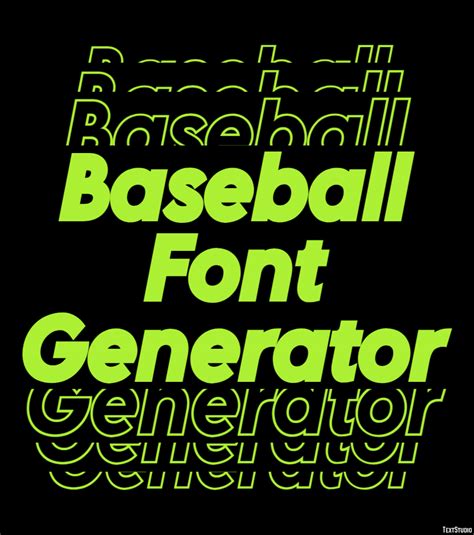
Create Amazing Baseball Designs With Free PSEI Baseball Font Generator
Create Amazing Baseball Designs with Free PSEI Baseball Font Generator
Hey baseball fanatics! Are you looking to amp up your team’s look, create awesome logos, or design some killer baseball-themed graphics? Well, you’re in luck, because we’re diving deep into the world of the PSEI Baseball Font Generator – a fantastic, free tool that lets you create some seriously cool baseball fonts. Forget about spending a fortune on expensive software or complex design skills, because this generator is here to make your design dreams a reality. We’re going to break down everything you need to know, from what the PSEI Baseball Font Generator is all about, how to use it, and some super creative ideas to get those design juices flowing. Let’s get started, guys!
What is the PSEI Baseball Font Generator?
So, what exactly is this PSEI Baseball Font Generator? Simply put, it’s an online tool designed to help you create custom baseball fonts without any complicated design software. This is a game-changer because you don’t need to be a design guru to make professional-looking text for your baseball projects. Whether you are a coach, a player, a parent, or just a huge baseball fan, the PSEI Baseball Font Generator offers a user-friendly interface that lets you customize fonts to match your team’s colors, style, and overall vibe. The best part? It’s free ! No hidden costs, no subscriptions – just pure font-generating fun. You can easily create text for team names, player names, logos, or any other baseball-related design you can imagine. This tool is perfect for creating graphics for team jerseys, website banners, social media posts, and even printed materials like posters and flyers. Because it is so accessible and easy to use, the generator is a must-have for anyone looking to add a professional touch to their baseball-themed projects. With a few clicks, you can create a unique and eye-catching font that perfectly represents your team or your passion for the sport. It’s the ultimate tool for bringing your baseball design ideas to life, all without any technical hurdles. This tool makes the design process simple and enjoyable, allowing you to focus on the creative side of your project.
Key Features of the Generator
Let’s take a closer look at some of the awesome features this generator has to offer. First off, it’s incredibly user-friendly. You don’t need to have any prior design experience to get started. The interface is intuitive, with simple options to customize your text. You can typically choose from a variety of baseball-style fonts or templates, each with its unique look. Some generators offer options to change the font size, color, and even add effects like outlines or shadows to make your text pop. You can usually input your desired text, and the generator will instantly show you a preview of how it will look with the selected font and customizations. The ability to preview your text in real time is a huge advantage, as it allows you to experiment with different styles and settings until you get the perfect look. Often, you can download your custom font in various formats, such as PNG or JPG, making it easy to use in different design projects. This versatility means you can easily integrate your custom font into your favorite design software or use it for your social media graphics. And remember, the fact that this is free is a massive bonus! It levels the playing field, making professional-quality design accessible to everyone, regardless of their budget or skill level. The features are designed to give you complete control over your font creation, making it simple to produce designs that truly represent your team or your personal brand.
How to Use the PSEI Baseball Font Generator: A Step-by-Step Guide
Alright, let’s get down to the nitty-gritty and walk through how to use the PSEI Baseball Font Generator. It’s super simple, I promise! First, you’ll need to find a reliable online generator. There are several options available, so do a quick search and pick one that looks promising. Once you’re on the website, you’ll usually see a text input field where you can type in the words or phrases you want to convert into a baseball font. Next, you can select from a range of available fonts. The generator will typically offer a selection of baseball-style fonts, each with its unique characteristics. Browse through the options and choose the one that best fits your design needs. After selecting your font, you’ll likely have customization options. This is where you can tweak the appearance of your text. You might be able to adjust the font size, the color, and potentially add effects such as outlines, shadows, or even curved text. Experiment with these settings to get the look you want. The generator will usually provide a real-time preview of your text, so you can see how your changes affect the final design. Once you’re happy with your font, look for the download option. The generator will usually allow you to download your custom font in common image formats like PNG or JPG. Simply click the download button, and your font will be saved to your device. Now, you can use your new font in your design projects. Import the downloaded image into your design software or use it in your social media posts. It’s that easy! Following these steps will help you create eye-catching baseball fonts quickly and without any design expertise.
Tips and Tricks for Getting the Most Out of the Generator
Want to take your font game to the next level? Here are some pro tips and tricks to help you get the most out of your PSEI Baseball Font Generator. First, play around with different fonts. Don’t settle for the first one you see! Experiment with various fonts to find the one that best matches your project’s style. Some fonts are bold and strong, perfect for team names, while others might be more decorative and suitable for logos. Next, experiment with colors. Color is key! Try different color combinations to see what looks best. Consider your team’s colors or the overall theme of your design. Using contrasting colors can make your text more visible and appealing. Also, adjust the size and spacing. The size and spacing of your text can significantly impact its appearance. Make sure your text is large enough to be easily readable but not so large that it overwhelms your design. Adjust the spacing between letters and words to create a balanced look. Don’t be afraid to add effects! Many generators offer effects like outlines, shadows, and curves. These can add depth and visual interest to your text. Play with these effects to see how they enhance your design. And finally, be creative! The PSEI Baseball Font Generator is all about creativity. Don’t be afraid to try new things and push the boundaries of your design. Experiment with different combinations of fonts, colors, and effects to create a unique and eye-catching look. These tips will help you create visually stunning baseball fonts that truly stand out!
Creative Ideas for Using Your Baseball Fonts
Ready to get those creative juices flowing? Here are some fantastic ideas for using your custom baseball fonts. Let’s start with team logos. Create a unique logo for your baseball team using a custom baseball font. This is a great way to establish a strong brand identity and make your team stand out. Next, design team jerseys. Use your custom font to create the team name and player names on jerseys. This adds a professional and personalized touch to your team’s uniforms. Think about designing website banners and social media graphics. Use your baseball font to create eye-catching banners and graphics for your team’s website or social media pages. This is a great way to promote your team and engage with your fans. Furthermore, craft posters and flyers. Create posters and flyers to advertise your team’s games, events, or tryouts. A custom baseball font will help you grab attention and convey the excitement of the sport. Also, consider designing merchandise. Use your custom font to create merchandise like t-shirts, hats, and other gear. This is a great way to generate team spirit and revenue. And lastly, personalize gifts. Create personalized gifts for players, coaches, or fans. This could include items like mugs, water bottles, or phone cases with their name or a special message in a baseball font. These ideas show how versatile the PSEI Baseball Font Generator is.
Design Examples and Inspiration
Need a little inspiration? Let’s look at some cool design examples to spark your imagination. Picture a bold, blocky font used for a team name on a jersey, with a contrasting color outline for added visibility. This creates a strong, professional look. Now, imagine a script-style font used for player names, adding a touch of elegance and personalization. This can make the jersey feel more unique. Envision a logo using a baseball font with a classic baseball icon, like a bat and ball, integrated into the design. This creates a memorable and recognizable logo. How about a social media graphic with a vibrant baseball font, overlaid on a photo of a baseball game in action? This can instantly capture attention and promote your team. Envision posters announcing game schedules, with the team name and date clearly displayed in a dynamic baseball font. This is an effective way to inform and excite fans. These examples show how a custom baseball font can be used creatively across various design elements.
The Benefits of Using a Free Font Generator
Why should you choose a free PSEI Baseball Font Generator? Let’s break down the amazing benefits. First off, it’s cost-effective. You can create professional-looking designs without spending a dime on expensive software or hiring a designer. This is especially beneficial for teams or individuals on a budget. Next, it’s user-friendly. The generators are designed to be easy to use, even for beginners. You don’t need any prior design experience to create custom fonts. Furthermore, it’s time-saving. With a few clicks, you can create and download custom fonts quickly, saving you valuable time. Also, you get complete customization. You have full control over the font, color, size, and effects, allowing you to create a truly unique look. Don’t forget the versatility. You can use your custom fonts in various design projects, from team jerseys to social media graphics. Finally, it provides flexibility. You can experiment with different styles and designs until you find the perfect look for your project. Free font generators are a fantastic resource for anyone wanting to create amazing baseball-themed designs, no matter their budget or experience level.
Conclusion: Unleash Your Creativity with the PSEI Baseball Font Generator
So, there you have it, guys! The PSEI Baseball Font Generator is an awesome tool for anyone looking to create stunning baseball-themed designs. It’s free, easy to use, and offers a ton of creative possibilities. Whether you’re designing a team logo, creating jerseys, or just looking to add a baseball touch to your social media, this generator is your new best friend. By following the tips and tricks we’ve covered, you’ll be well on your way to creating eye-catching fonts that will make your designs stand out. So go out there, get creative, and let your passion for baseball shine through your designs! The possibilities are endless, and with this free tool, you’re only limited by your imagination. Happy designing, and go get ‘em!